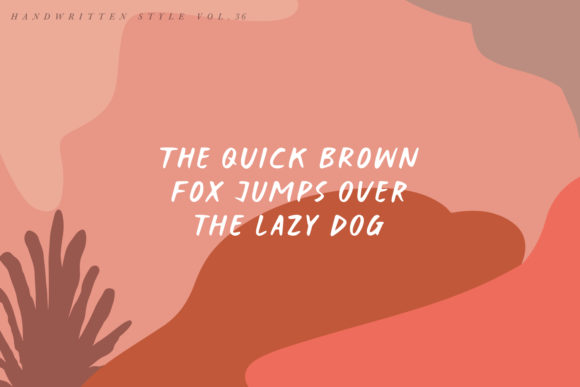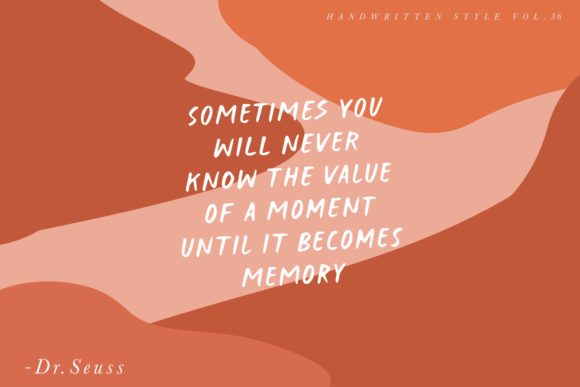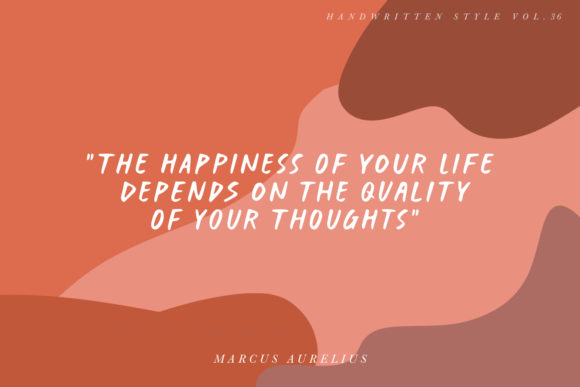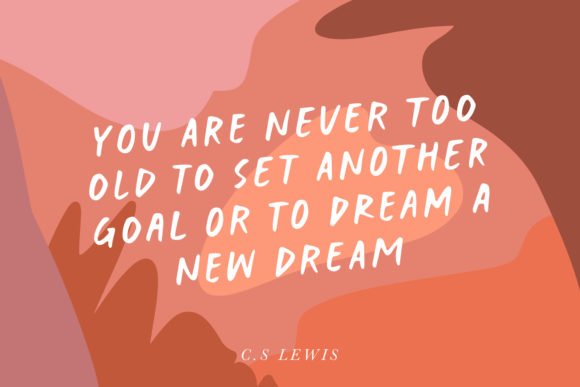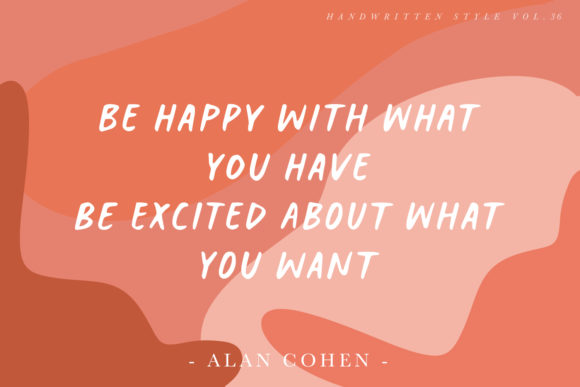
Introducing Crystal Snowfields Font: The Sweet and Friendly Handwritten Font
Are you tired of using the same old fonts in your designs? Do you want to add a touch of personality and whimsy to your creations? Look no further than Crystal Snowfields Font, a sweet and friendly handwritten font that’s perfect for a wide range of designs. With its natural and unique style, Crystal Snowfields is incredibly versatile and can be used in everything from invitations and greeting cards to branding and advertising materials.
The Inspiration Behind Crystal Snowfields Font
Crystal Snowfields Font is a beautifully crafted handwritten font that’s inspired by the magic of snowflakes and the beauty of the natural world. Its creator has carefully designed each letter to be unique and full of character, giving the font a friendly and approachable feel that’s sure to capture the hearts of your audience. Whether you’re designing for a winter-themed project or just want to add a touch of warmth and personality to your designs, Crystal Snowfields Font is the perfect choice.
What Makes Crystal Snowfields Font So Special?
So, what sets Crystal Snowfields Font apart from other fonts on the market? Here are just a few reasons why designers and crafters are falling in love with this beautiful handwritten font:
- Unique and Handwritten Style: Crystal Snowfields Font is a truly one-of-a-kind font that’s been carefully crafted to have a unique and handwritten style. Each letter is full of character and personality, making it perfect for designs that need a personal touch.
- Natural and Friendly Feel: The font has a natural and friendly feel that’s perfect for designs that need to connect with the audience on a personal level. Whether you’re designing for a business or personal project, Crystal Snowfields Font is sure to help you build a strong emotional connection with your audience.
- Highly Versatile: Crystal Snowfields Font is incredibly versatile and can be used in a wide range of designs, from invitations and greeting cards to branding and advertising materials. The only limit is your imagination!
How to Use Crystal Snowfields Font in Your Designs
Using Crystal Snowfields Font in your designs is easy and fun. Here are a few tips to get you started:
- Pair it with Other Fonts: Crystal Snowfields Font pairs perfectly with other fonts, especially serif and sans-serif fonts. Try pairing it with a bold font for a striking contrast or a elegant font for a more sophisticated look.
- Use it for Headings and Titles: Crystal Snowfields Font is perfect for headings and titles, where its unique and handwritten style can really shine. Try using it to add a touch of personality to your blog posts, articles, and social media graphics.
- Add it to Your Branding Materials: If you’re looking for a way to add a touch of personality to your branding materials, Crystal Snowfields Font is a great choice. Use it for your logo, business cards, and packaging materials to create a cohesive and recognizable brand identity.
Why Designers and Crafters Love Crystal Snowfields Font
Crystal Snowfields Font has quickly become a favorite among designers and crafters, and it’s easy to see why. Here are just a few reasons why this beautiful handwritten font is a must-have for any creative:
- Easy to Read: Despite its unique and handwritten style, Crystal Snowfields Font is incredibly easy to read, even at small sizes. This makes it perfect for designs that need to communicate a message clearly and effectively.
- High-Quality Design: Crystal Snowfields Font is a high-quality design that’s been carefully crafted to look great in any design. Whether you’re designing for print or digital, this font is sure to deliver.
- Constantly Updated: The creator of Crystal Snowfields Font is committed to constantly updating and improving the font to ensure it meets the needs of designers and crafters.
| Font Name | Crystal Snowfields Font |
| Author | Geranium.co |
In conclusion, Crystal Snowfields Font is a sweet and friendly handwritten font that’s perfect for designers and crafters who want to add a touch of personality and whimsy to their creations. With its natural and unique style, this font is incredibly versatile and can be used in a wide range of designs. Whether you’re designing for a winter-themed project or just want to add a touch of warmth and personality to your designs, Crystal Snowfields Font is the perfect choice. So why wait? Download Crystal Snowfields Font today and start creating beautiful, unique designs that capture the hearts of your audience!